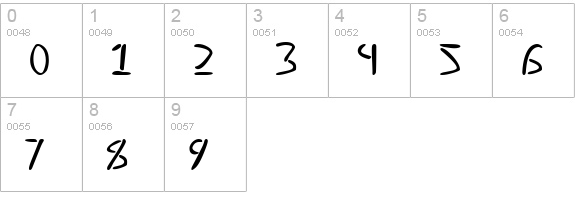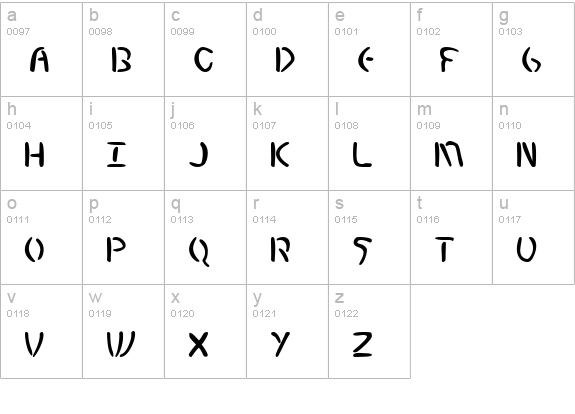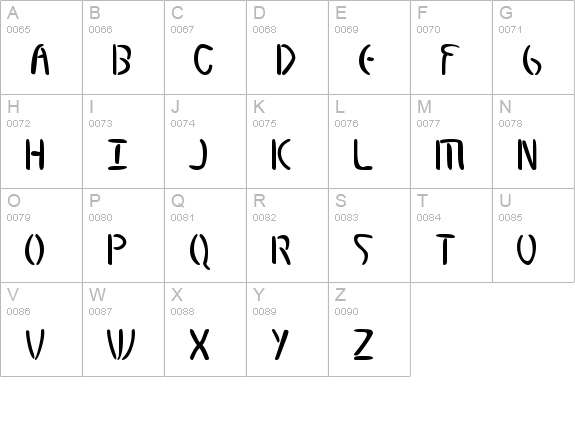
Mystic Etchings Normal is the standard, neutral variant in the Mystic typeface family \xE2\x80\x94 well suited to general body text, paragraphs, and standard typographic work.
Mystic Etchings Normal font is a captivating and mysterious typeface that will add a touch of enchantment to your designs. With its intricate details and mystical vibes, this font is perfect for creating a sense of magic and intrigue in your projects. The elegant and stylish letterforms of Mystic Etchings Normal font are sure to make a statement and leave a lasting impression on your audience. Whether you're working on a branding project, a poster design, or any other creative endeavor, this font will bring a unique and enchanting touch to your work. Best of all, Mystic Etchings Normal font is available for free download at FontsMarket.com. So why wait? Add a touch of magic to your designs with this stunning and captivating typeface today!